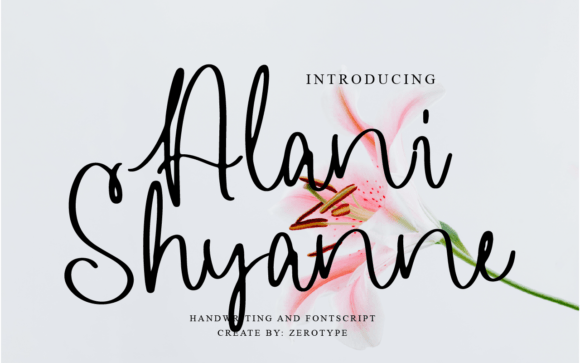
The Birth of a Timeless Masterpiece: Alani Shyanne Font
Have you ever been struck by the perfect combination of words and design? For many creatives, it’s a moment that sparks inspiration and sets the wheels turning. For designers, it’s the search for the perfect font that elevates their vision. And when you stumble upon a script font as breathtaking as the Alani Shyanne Font, you know you’ve hit the jackpot.
This stunning script font is more than just a typeface – it’s a work of art that exudes elegance and charm. Its delicate curves and intricate details make it the perfect addition to any design project. Whether you’re crafting a wedding invitation, a brand identity, or a social media campaign, the Alani Shyanne Font adds a touch of sophistication and refinement that’s sure to captivate and enchant viewers.
As a valuable asset for designers, the Alani Shyanne Font is a timeless beauty that leaves a lasting impression. Its versatility and classic charm make it an essential tool for any creative looking to elevate their designs and stand out from the crowd.
Alani Shyanne Font Key Features
- Font Family: Alani Shyanne
- Font Style: Script, Handwritten
- Unique Characteristics: This font features elegant, flowing script letters with a touch of whimsy, making it perfect for wedding invitations, greeting cards, and other creative projects.
Designer Review: Alani Shyanne Font
Overall, I’m quite impressed with the Alani Shyanne Font. Here are some aspects where it truly shines: ✨
- Unique and elegant feel, perfect for fashion or lifestyle brands
- Beautiful, flowing letterforms that evoke a sense of luxury and sophistication
- Wide range of languages supported, making it a great choice for global brands
- Excellent for both digital and print applications
- May not be the best choice for brands with a more playful or casual tone
- The font can be quite heavy, so be mindful of legibility in smaller sizes
- Some users may find the font too ornate or over-the-top for certain applications
Overall, I think the Alani Shyanne Font is a great addition to any designer’s toolkit. While it may not be the perfect fit for every project, it’s a beautiful and versatile font that can add a touch of sophistication and elegance to a wide range of designs.
Alternatives to Alani Shyanne Font
The Great Vibes Font is a beautiful, elegant script font perfect for creating a romantic and whimsical atmosphere. It is ideal for wedding invitations, baby shower invitations, and other special occasions. Compared to Alani Shyanne, Great Vibes Font has a more flowing and cursive feel, making it perfect for creating a sense of movement and energy.
The Carolyna Pro Font is a modern script font with a touch of elegance and sophistication. It is perfect for creating a high-end and luxurious look, making it ideal for fashion brands, beauty products, and luxury goods. Compared to Alani Shyanne, Carolyna Pro Font has a more modern and sleek feel, making it perfect for creating a sense of sophistication and glamour.
The Alex Brush Font is a beautiful, handwritten font with a personal touch. It is perfect for creating a friendly and approachable atmosphere, making it ideal for blogs, social media, and other online platforms. Compared to Alani Shyanne, Alex Brush Font has a more casual and relaxed feel, making it perfect for creating a sense of connection and community.
The Ostrich Sans Font is a modern sans-serif font with a touch of sophistication and elegance. It is perfect for creating a clean and minimalist look, making it ideal for tech brands, startups, and other modern companies. Compared to Alani Shyanne, Ostrich Sans Font has a more modern and sleek feel, making it perfect for creating a sense of simplicity and clarity.